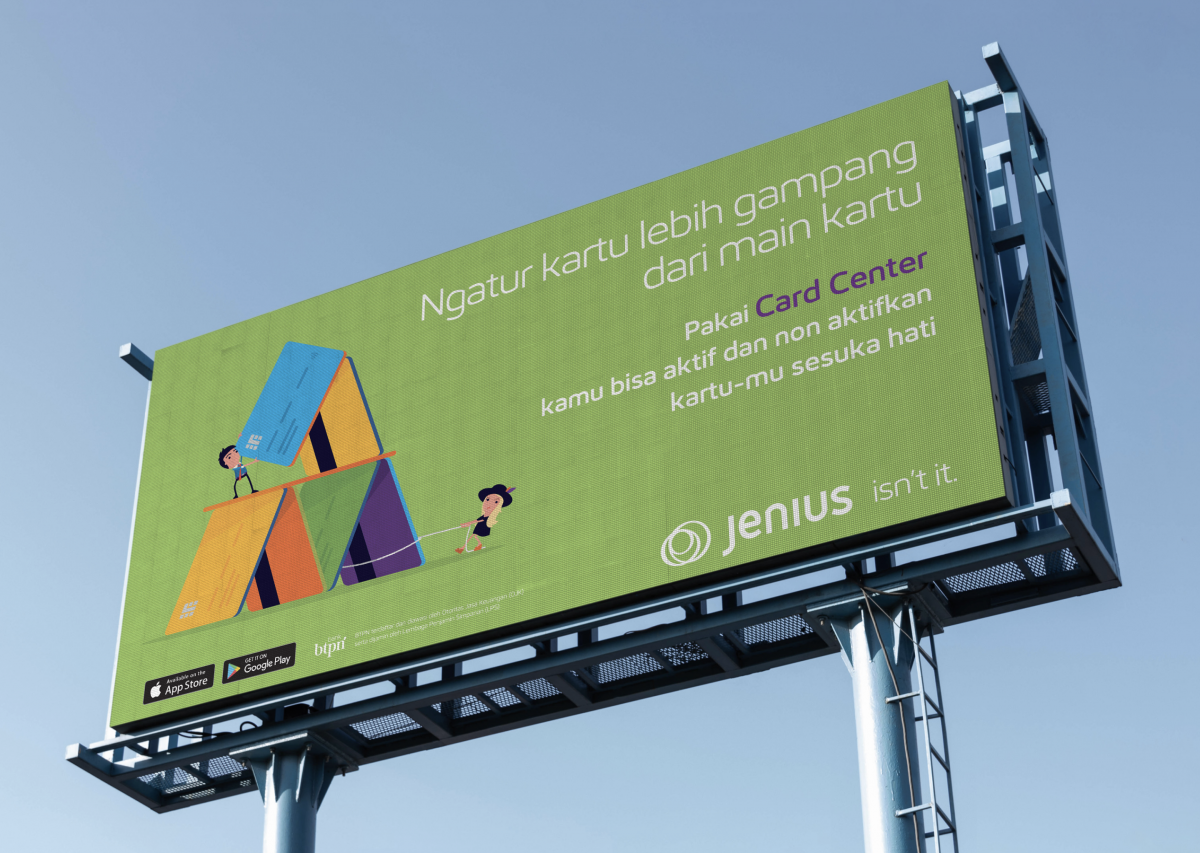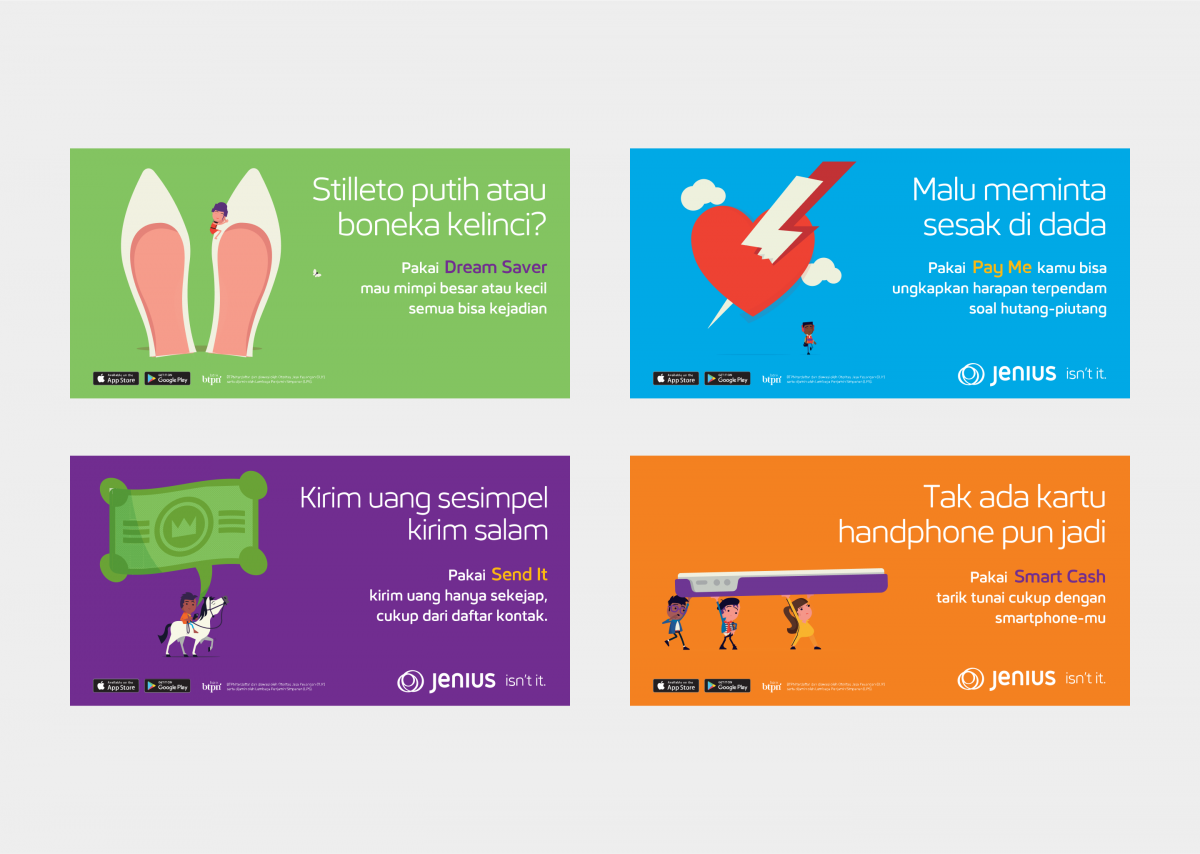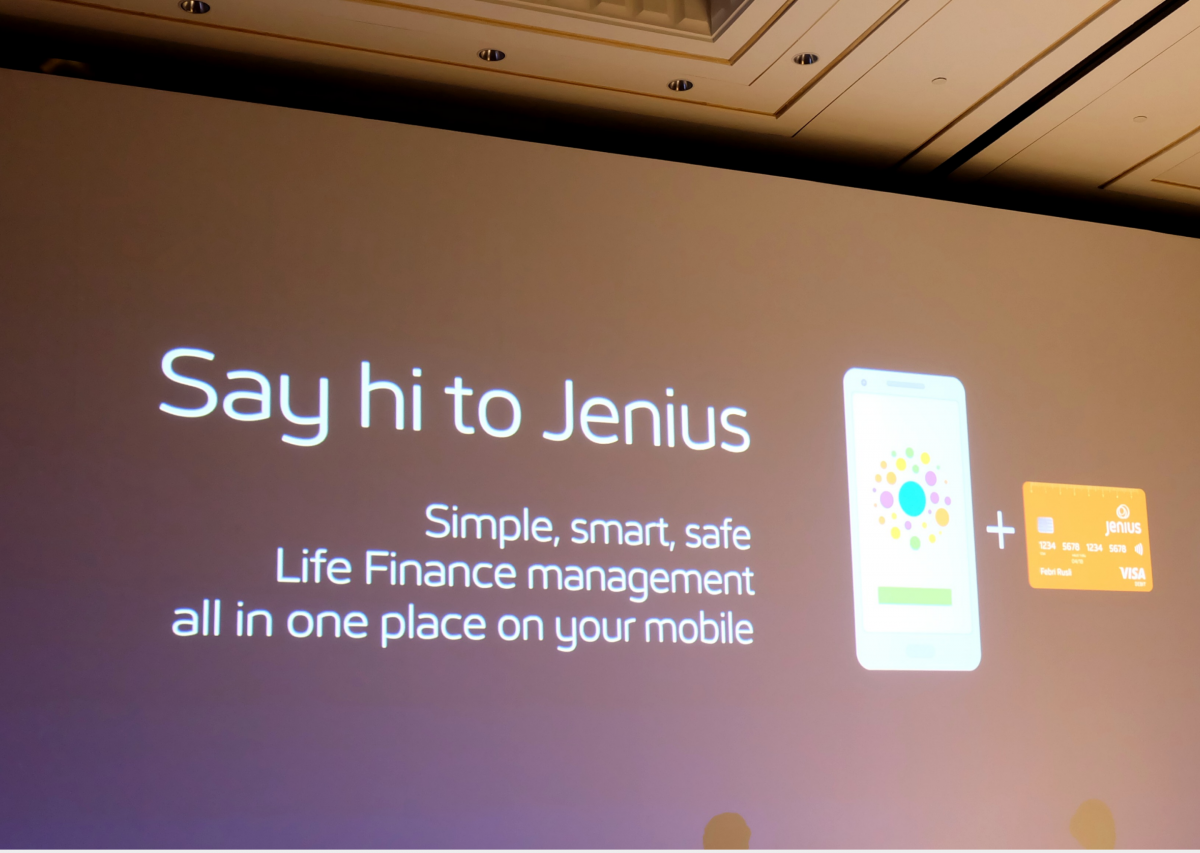
Jenius Sans is a compact companion of Jenius, an online banking platform from Bank BTPN. Jenius sans represents the continuity, flexibility, and possibilities of the brand to work with its visual system, how the brand weave in and out of the lives of the public. The consistency of each character shown in this typeface clearly little bit ‘tech-savvy’ with spurless on n, u, etc that was what make this typeface easily to recognize.
Jenius Sans
Clients: Bank BTPN
Design Direction: Iyan Susanto & Rege Indrastudianto
Commissioner: Leoburnett Indonesia & Visious Studio
Family Name: Jenius Sans
Design: Tokotype Studio
Year: 2016
Classification: Sans Serif
Styles: 6